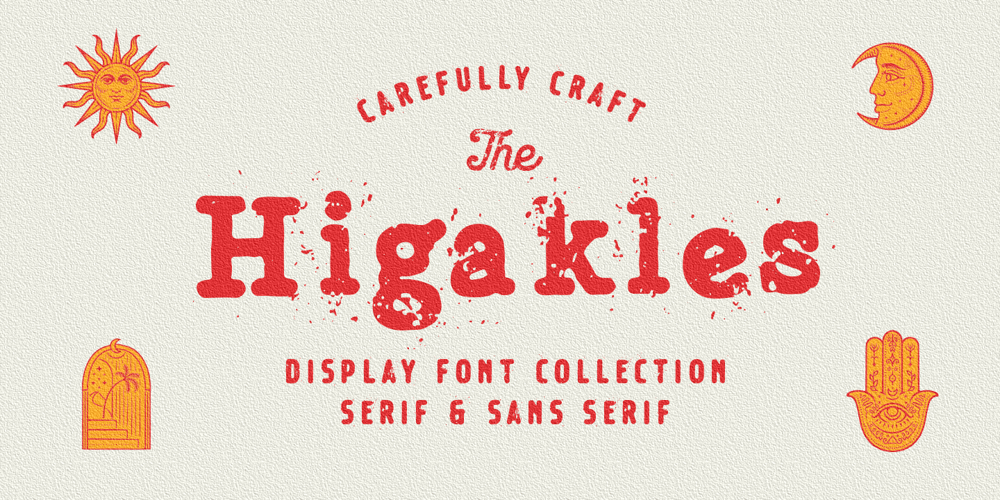
Higakles Font Family was designed by Edi Gunawan and published by Edignwn Type. Higakles contains 9 styles and family package options. The font collection is called “Higakles”, it is a display font for logotype. These collections contain serif and sans serif font. Every font comes with 4 style typefaces (regular, rounded, rough and stamp). Higakles give more extras 24 mystic and mythology illustrations. This stamp style has unique vintage handmade looks. The Higakles matches apply in some designs such as the logo, poster, label, badge, packaging, t-shirt, branding, quotes and more custom design.Higakles features : 4 style typefaces (regular, rounded, rough and stamp) Uppercase, lowercase, numeral, symbol, punctuation in serif font All-caps, numeral, symbol and punctuation in sans serif font Multilingual PUA Encoded Higakles includes : 9 fonts (serif, sans serif and dingbat) 24 hand-drawn illustrations in dingbat If you have any questions, please contact (edignwn11@gmail.com)